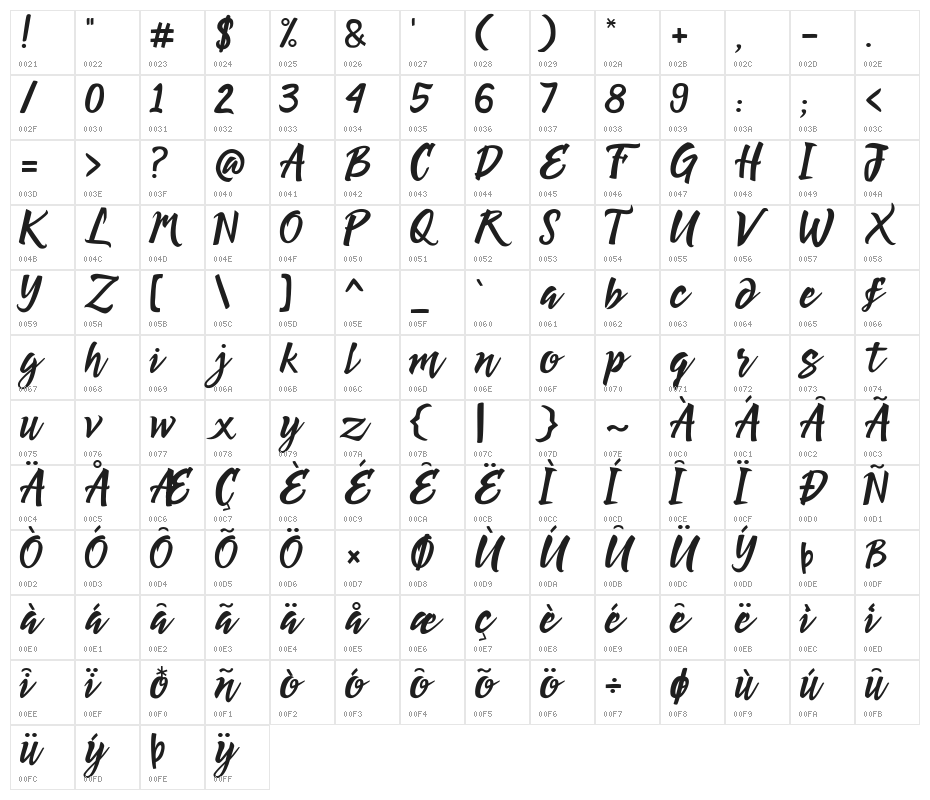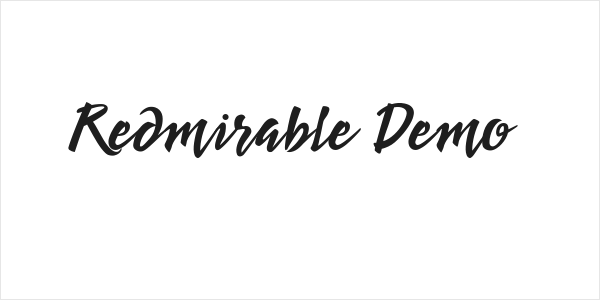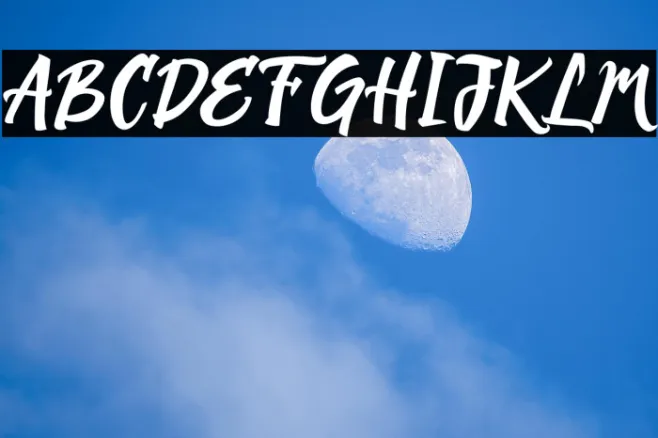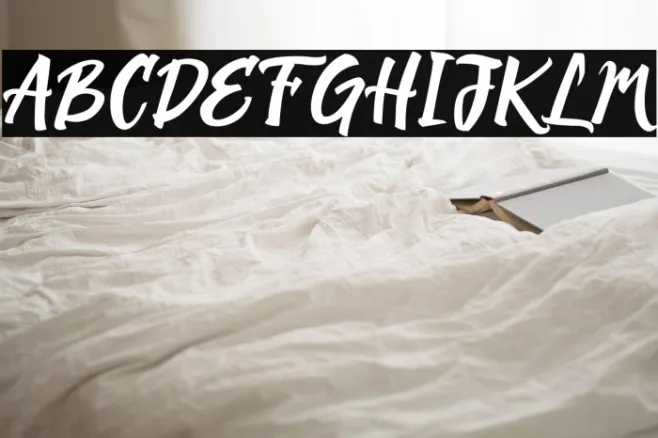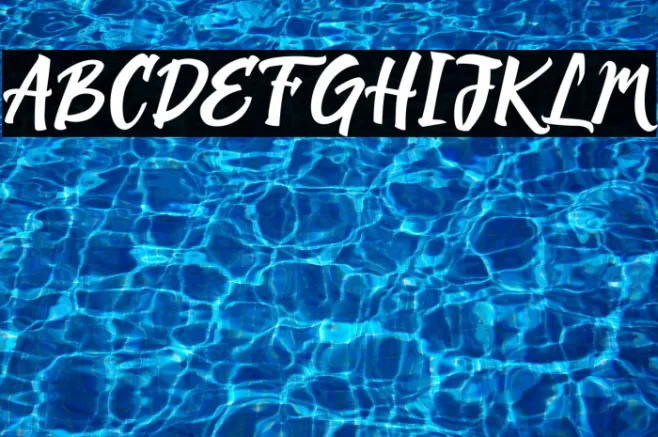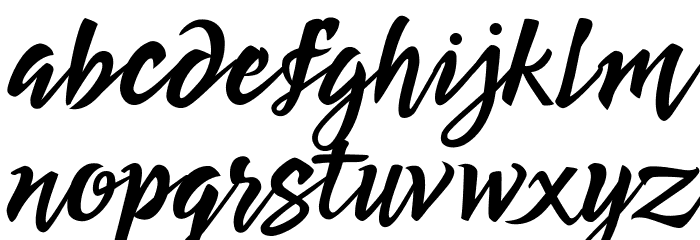
Redmirable Demo Font
Redmirable Demo Description
This font features a dynamic and expressive script style, characterized by its fluid and cursive letterforms. The strokes are bold and confident, giving a sense of movement and energy. Each character is distinct, with a playful yet sophisticated appearance. The uppercase letters are slightly more formal, while the lowercase letters exhibit a more casual, handwritten feel. The numbers and special characters maintain the same lively style, making them suitable for a variety of creative applications. The overall design is cohesive and visually appealing, perfect for projects that require a touch of elegance and personality.
| Proposed Projects | Ideal for branding, invitations, greeting cards, and creative design projects. |